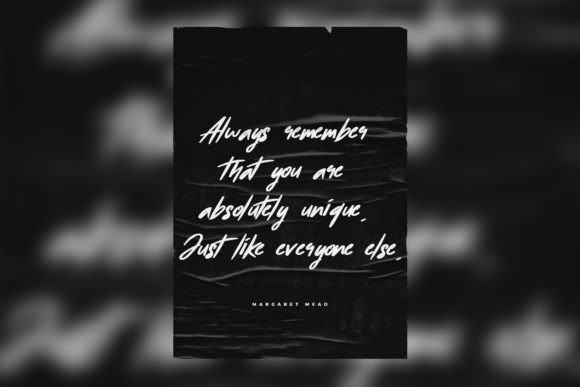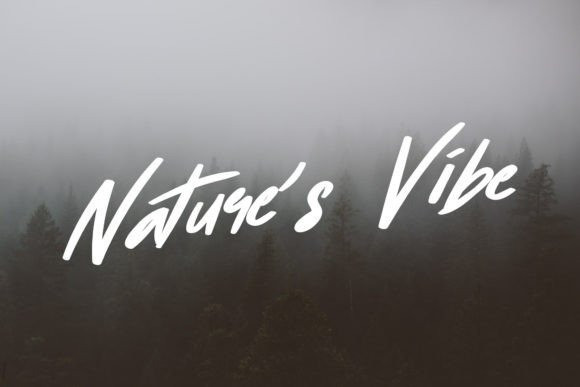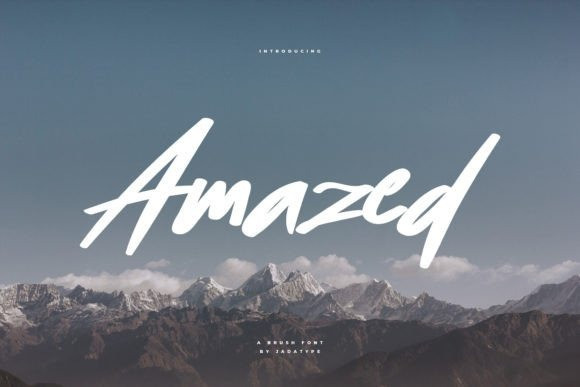
Amazed Font
Amazed Brush Font is a font with a brush that has an energetic and movement impression. suitable for your design needs, crafts, t-shirt designs, social media, typography, posters, advertisements, and so on. contains standard english letters and some that support multilingual. can be installed in applications such as Adobe Family, Affinity, MS Word and similar applications.